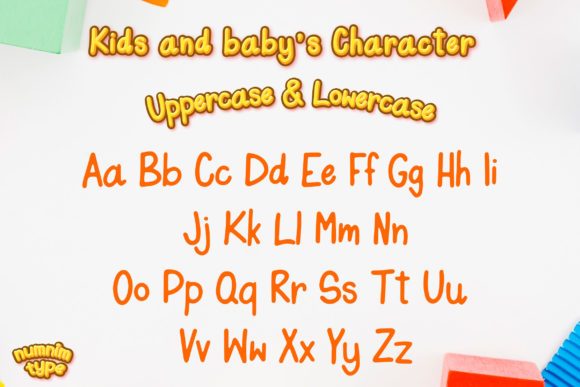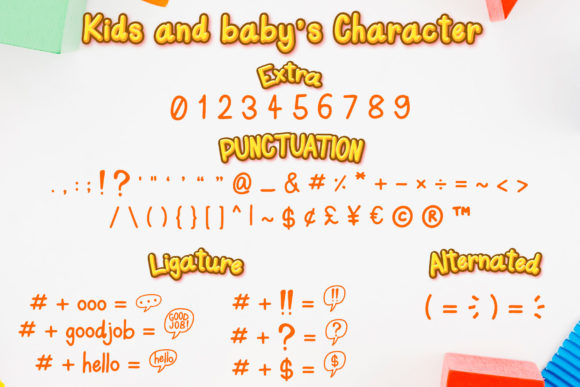
Kids and Baby Font
db-ku.com - Script & Handwritten -- Kids and Baby is a joyful and colorful handwritten font. This font is perfect for children themed designs, especially when combined with bright colors.